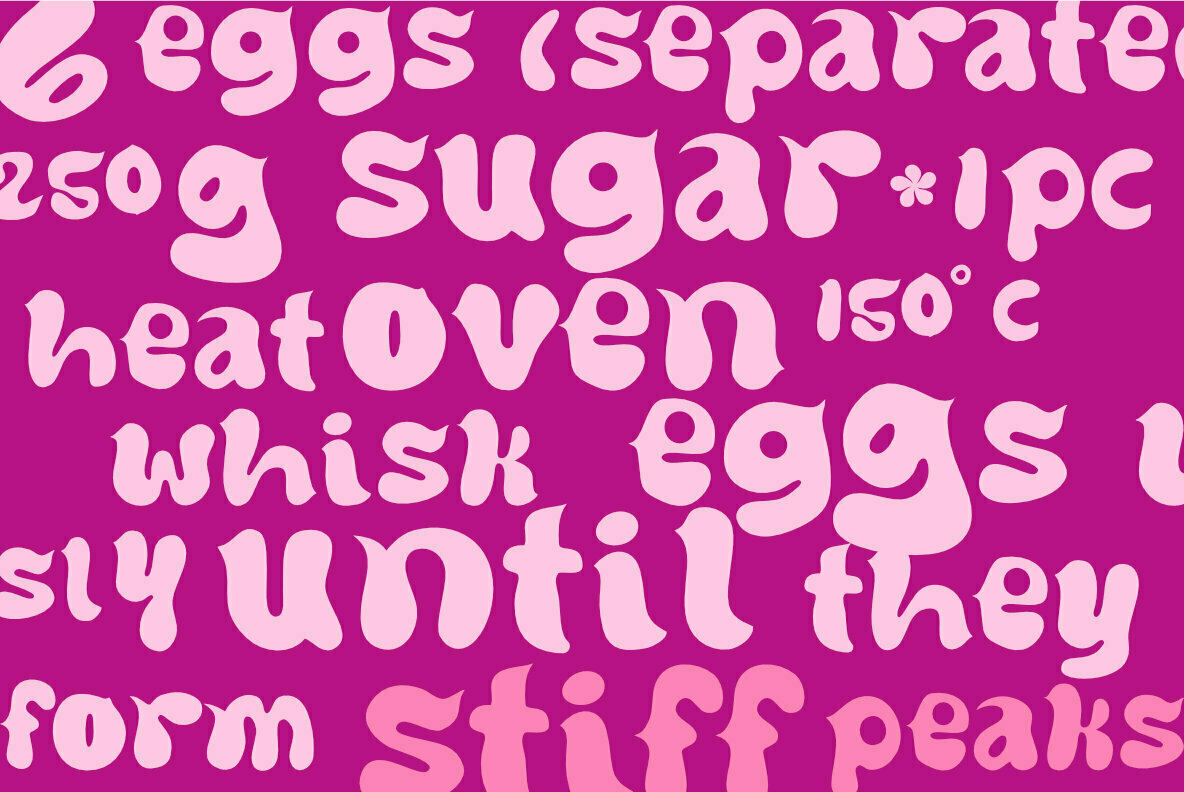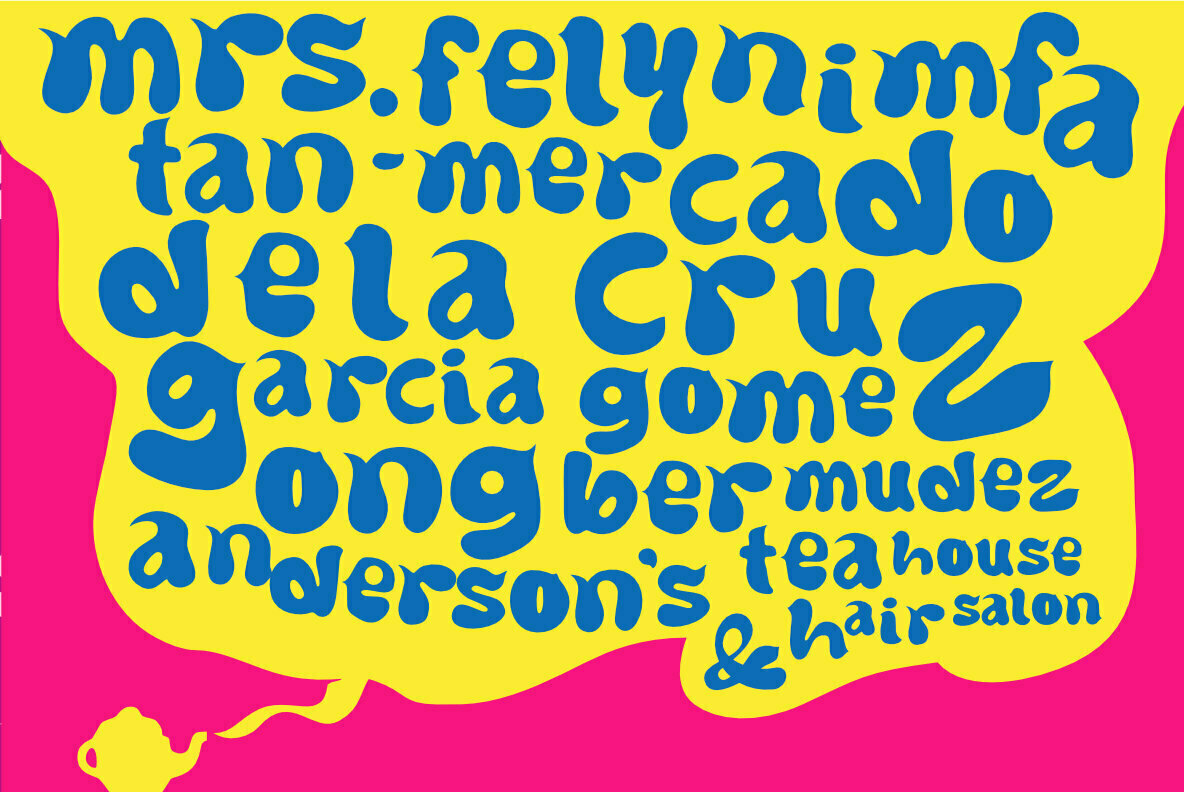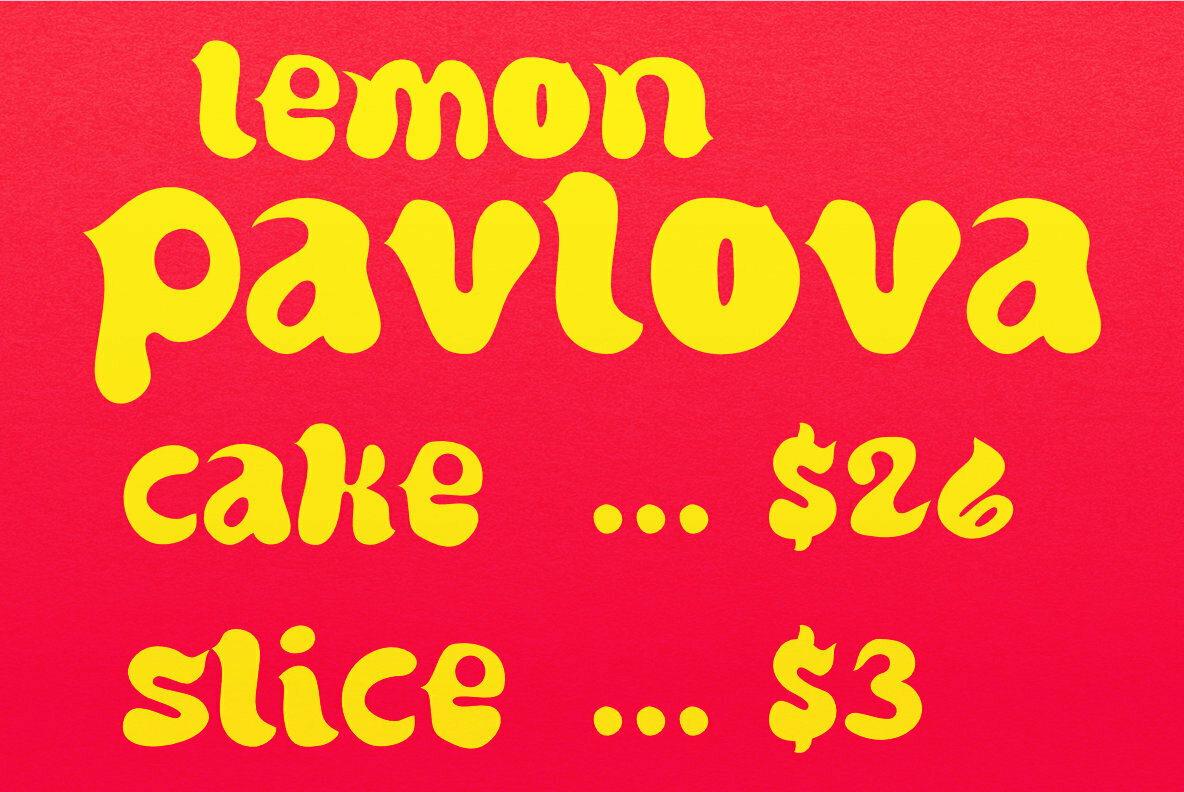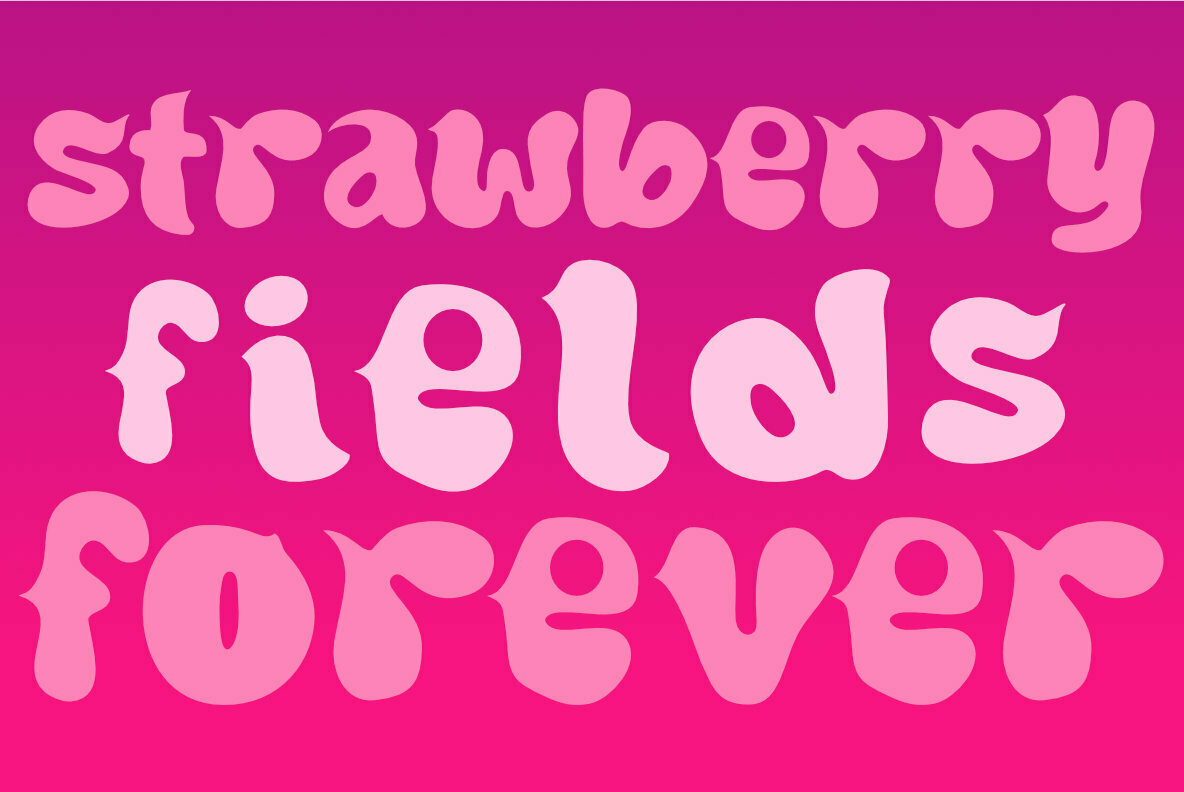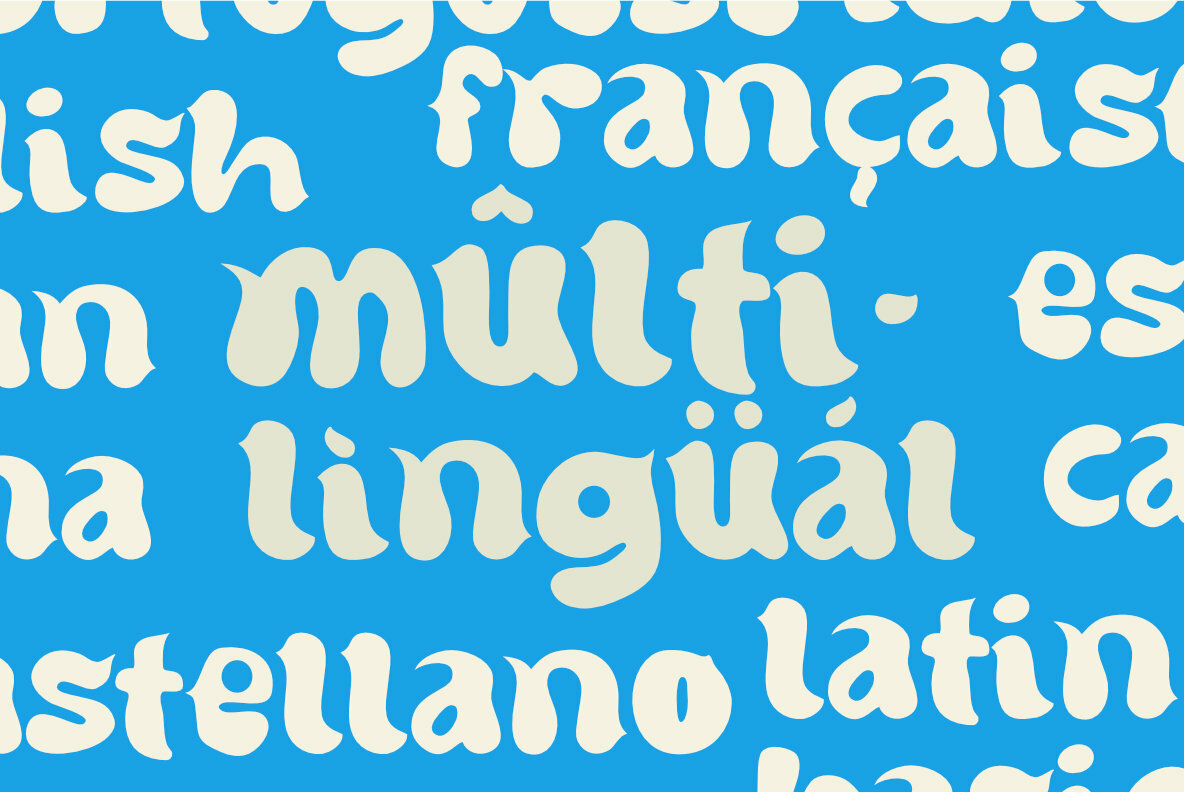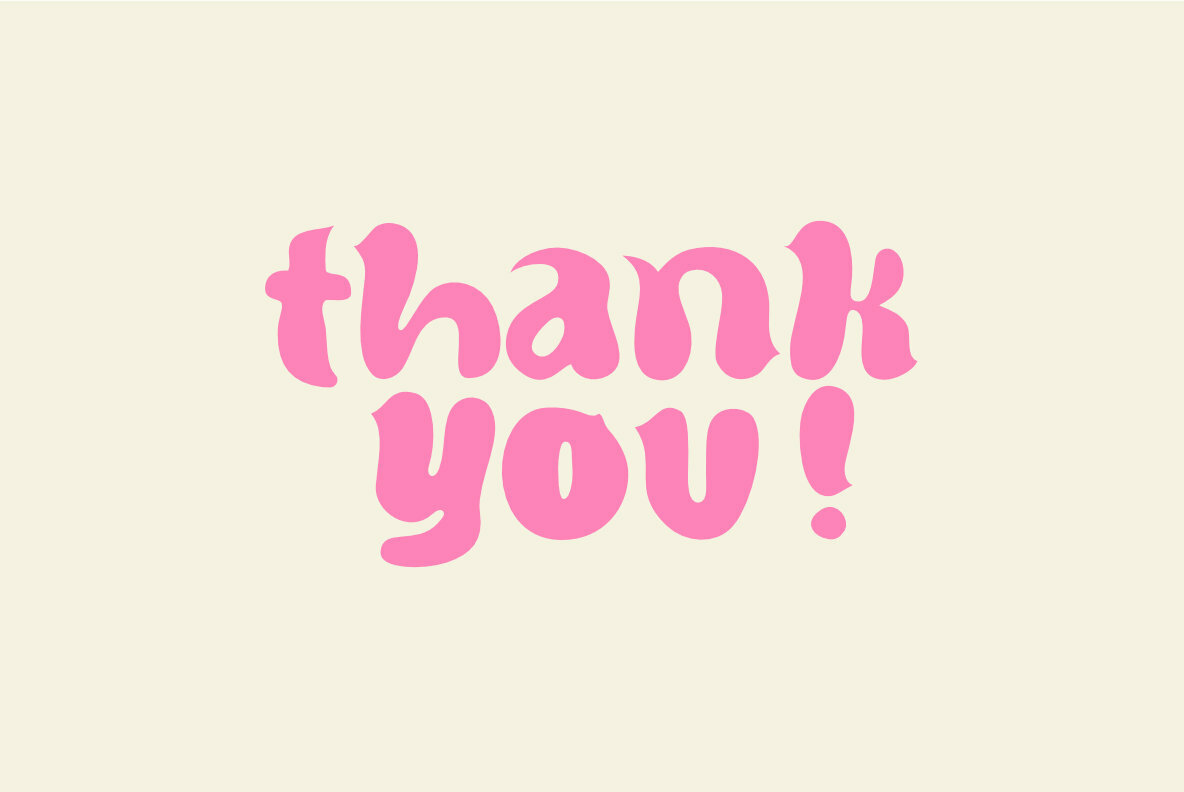
Stiff Peaks Font
Stiff Peaks Regular
Stiff Peaks is a perky lowercase display type that evokes energy of a pastry kitchen. No eggs and hand mixer needed!